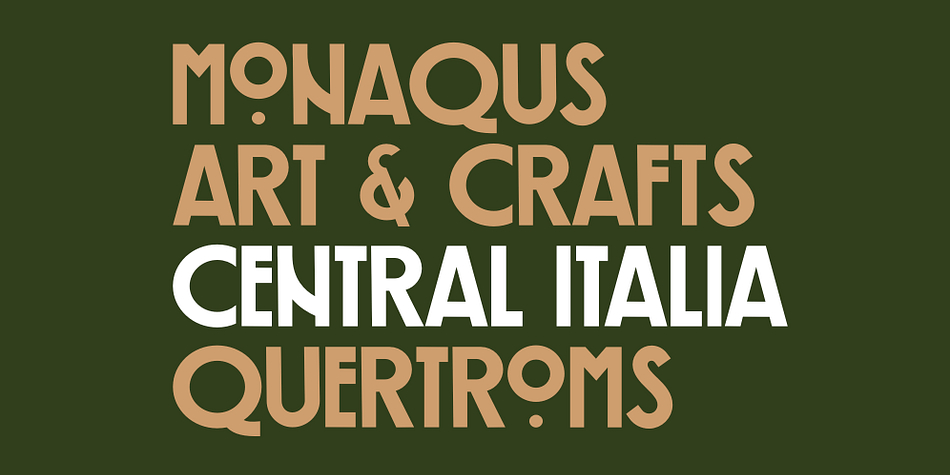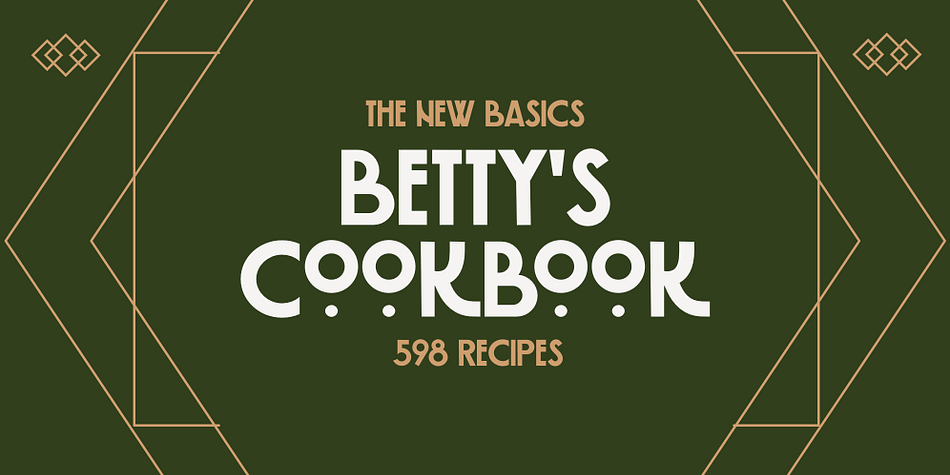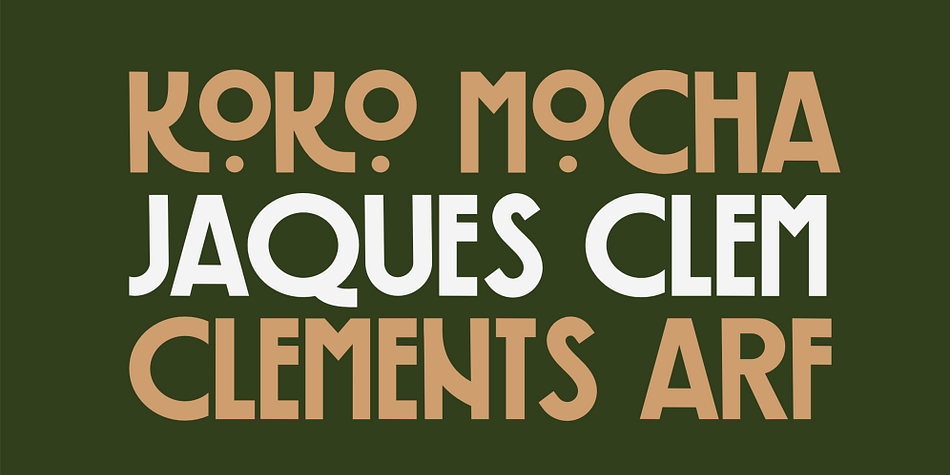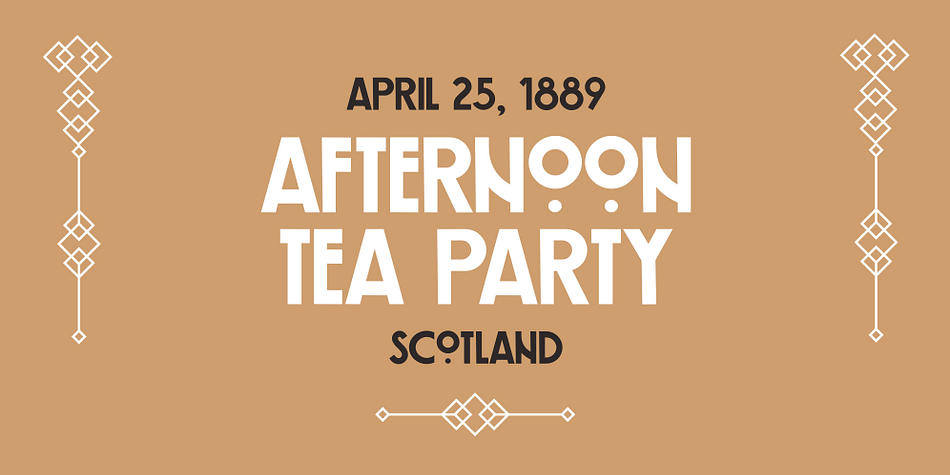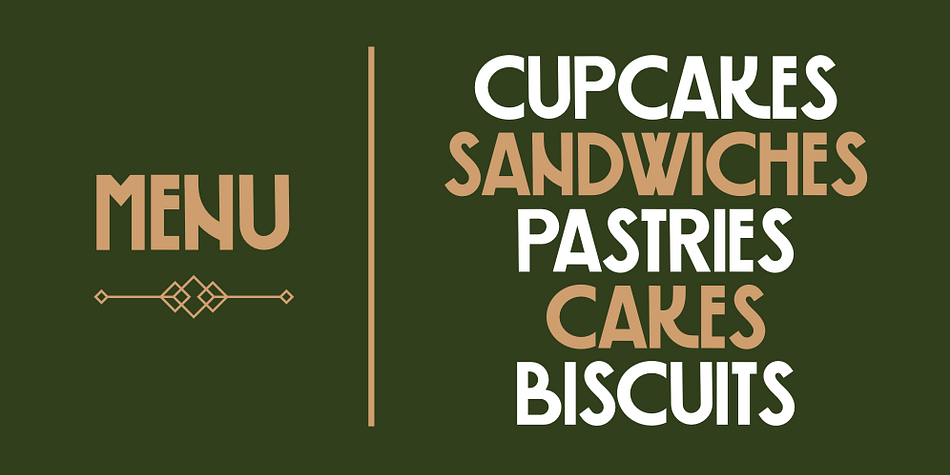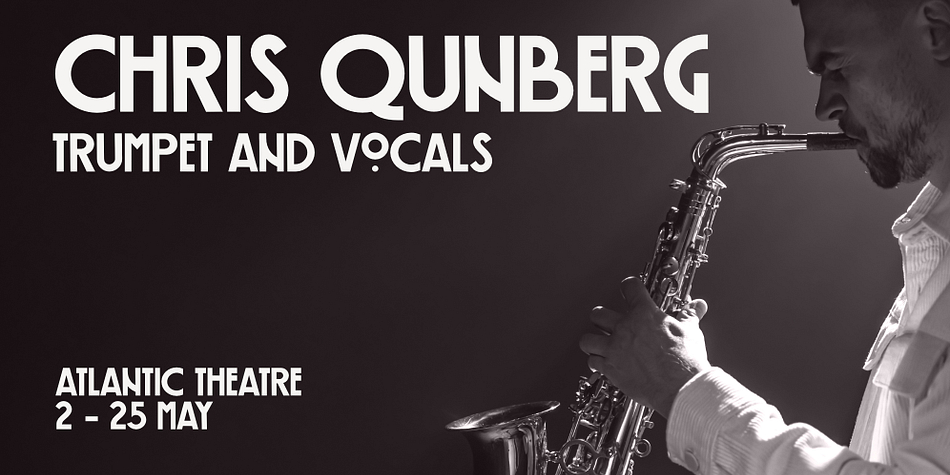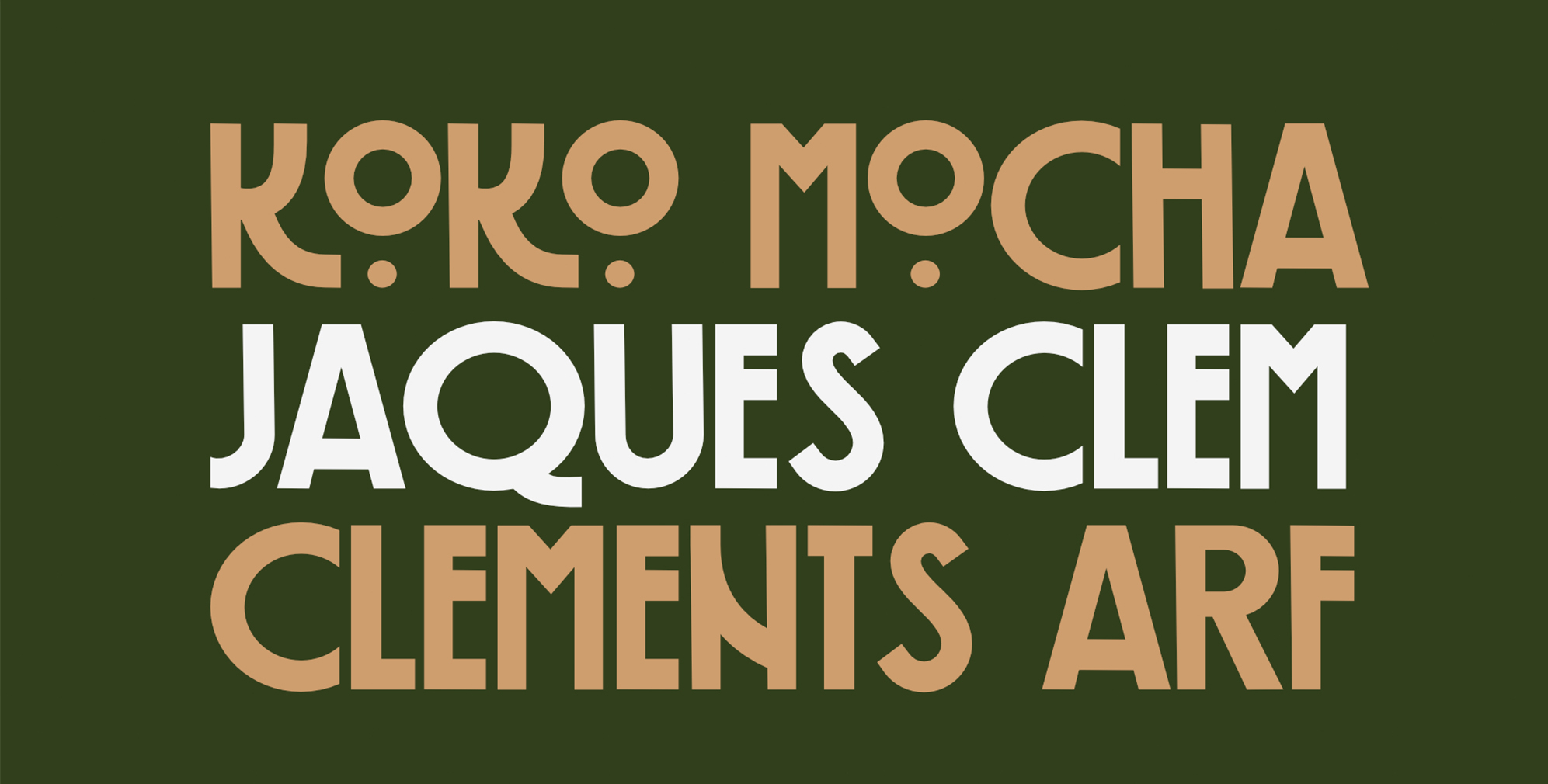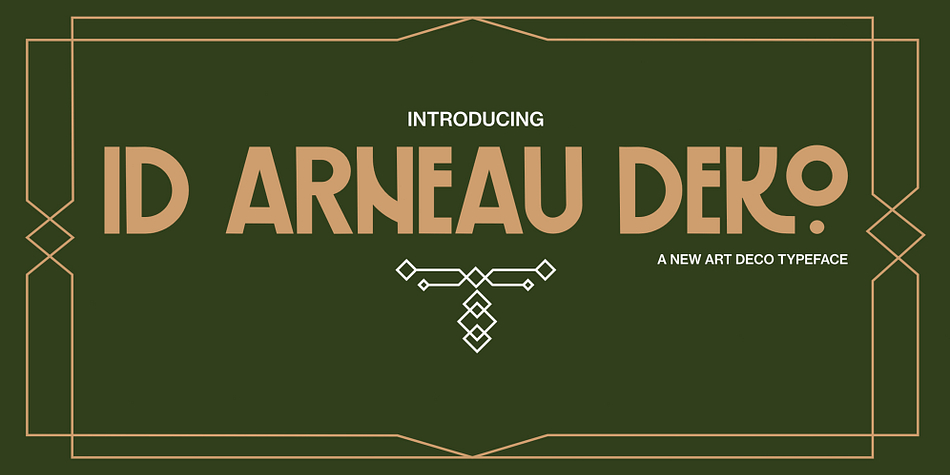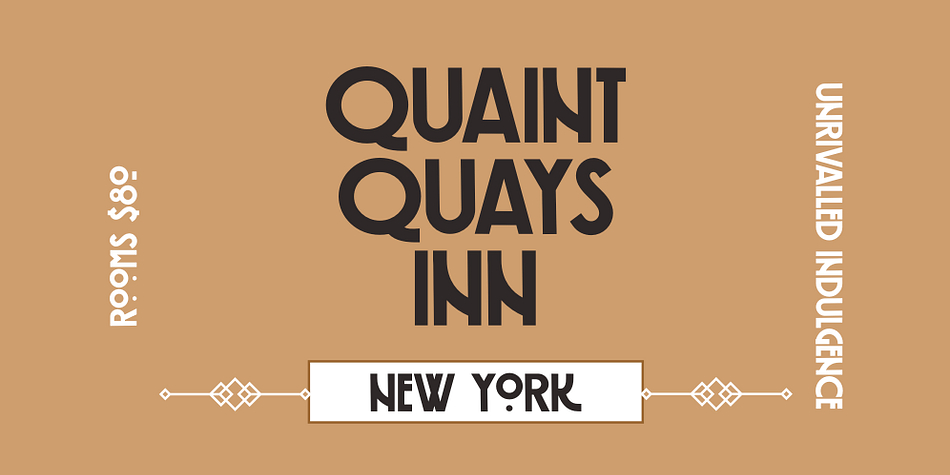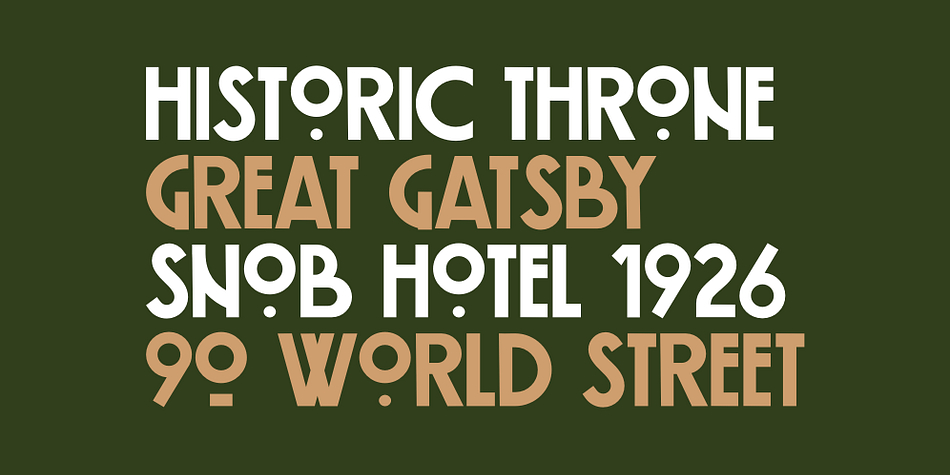
ID Arneau Deko
Designed by Swati Bhatnagar, ID Arneau Deko is a display sans font family published by IKAUNIK DZ.
Add a little Arts & Crafts flavor to your next project with ID Arneau Deko. Whether you need a distinctive flavor, or you need the design shining at large sizes, ID Arneau Deko may be the typeface for you. Its carries a dash of glitz and glamour and can be a fine addition for Art Nouveau flavored designs, that carries a vintage vibe. In addition, the typeface is perfect for invitations, logos, menus where where elegance and grace are needed.